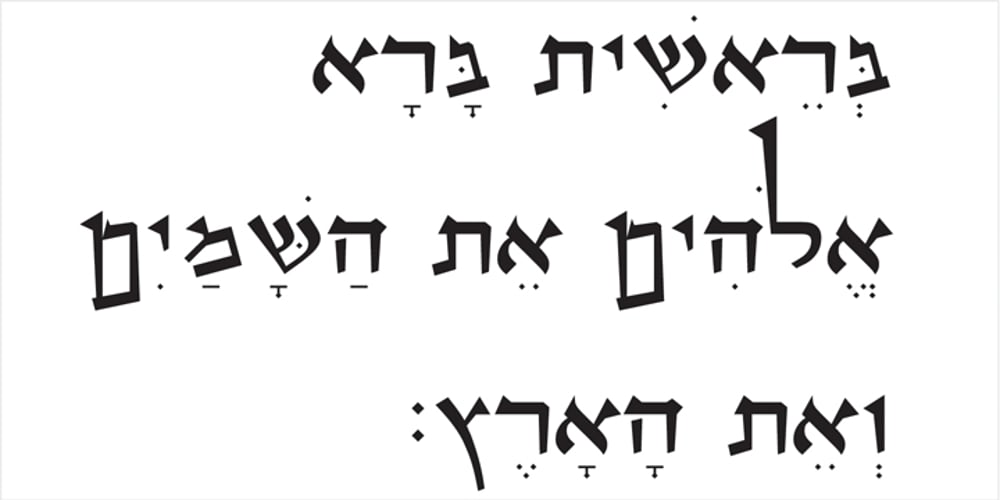
OL Hebrew Qumran Torah Font Family was designed by Dennis Ortiz-Lopez and published by Dennis Ortiz-Lopez. OL Hebrew Qumran Torah contains 1 styles and family package options. This font contains every variant found in the Hebrew Bible such as the “mutilated” Waw in Numbers 25: verse 12, the small Heh in Genesis 2: verse 4 and the Nun Inversum before Numbers 10: verse 35 and after verse 36 and elsewhere as well as certain oversized consonants such as the Shin with hireq from the beginning of the Song of Songs.